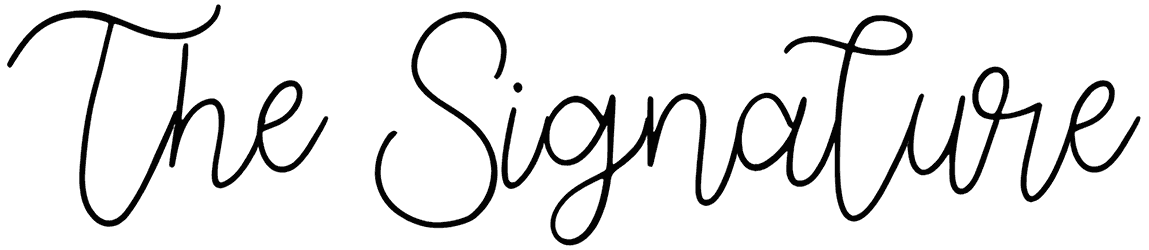
The Signature Font
Sometimes you have to cement your credentials as a professional and talented graphic artist, and in this way, a delicate script font the same as The Signature can be really helpful.
This signature font comes with curved and well-rounded edges, so it can be one of your main preferences in the realm of creating high-end graphic content, including gift cards, business cards, flyers, banner ads, or social media posts. It carries a vibe of drama, dynamism, vivacity, or dreaminess.